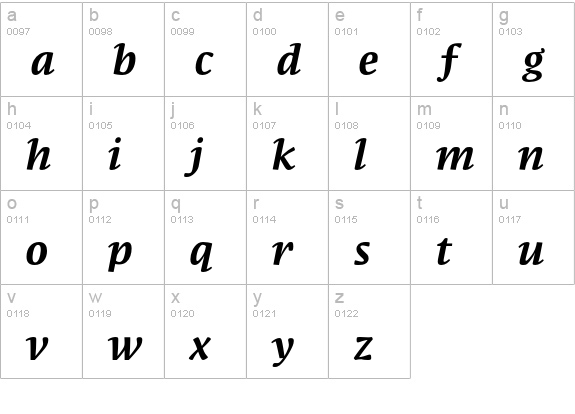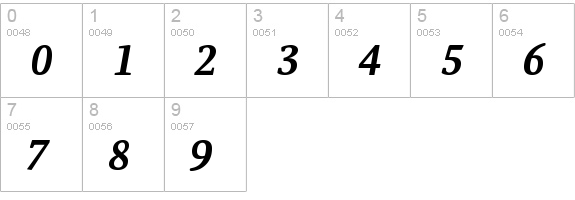
ParableLF-BoldItalic Font Details
ParableLF-BoldItalic is a captivating and elegant font that exudes a sense of sophistication and uniqueness. Its bold and italic design adds a touch of emphasis and flair to any project, making it perfect for both professional and creative endeavors. With its sleek and stylish letterforms, ParableLF-BoldItalic stands out from the crowd, effortlessly catching the eye and leaving a lasting impression. Whether used for headings, logos, or body text, this font brings a touch of modernity and class to any design. What sets ParableLF-BoldItalic apart is not only its stunning aesthetics but also its availability. This font is freely available to download at FontsMarket.com, allowing designers, creatives, and enthusiasts to access this remarkable typeface without any cost. With ParableLF-BoldItalic, designers can unlock their creativity and effectively communicate their message. Its versatility allows it to be used in a wide range of design projects, from branding and packaging to websites and social media graphics. This font is a true gem, offering a perfect balance between sophistication and readability. Its flowing curves and sharp edges create a harmonious blend, ensuring legibility even in smaller sizes. ParableLF-BoldItalic is a font that effortlessly combines elegance, style, and functionality. Its free availability at FontsMarket.com makes it an invaluable resource for designers and typographers alike who are seeking a font that captures attention and leaves a lasting impression.